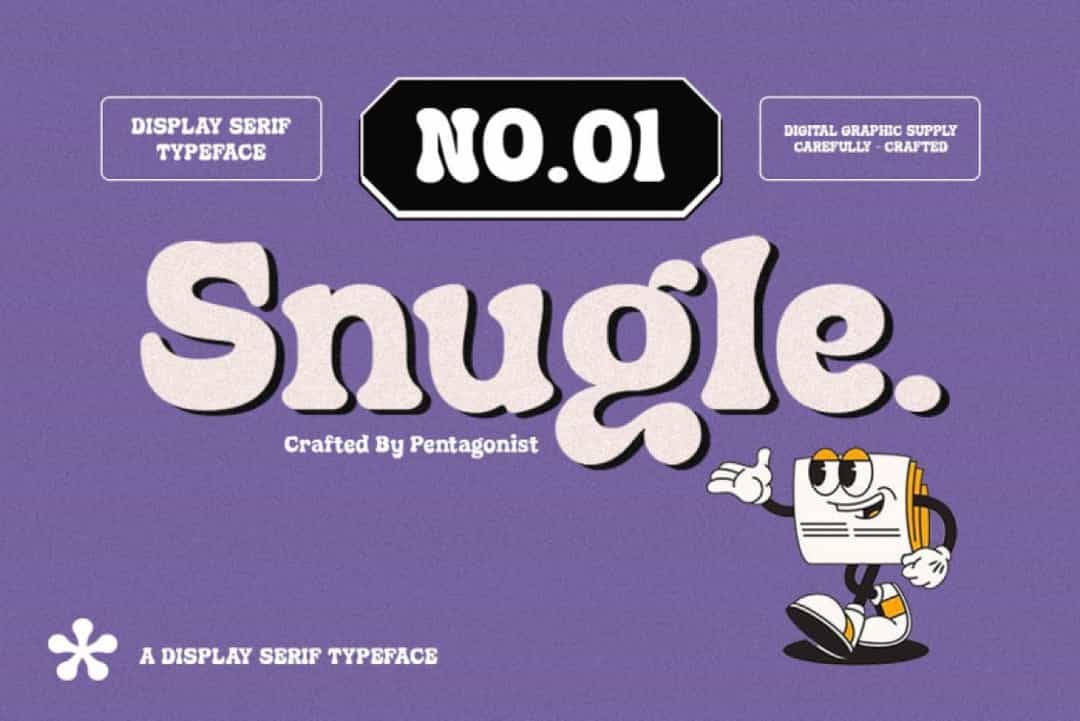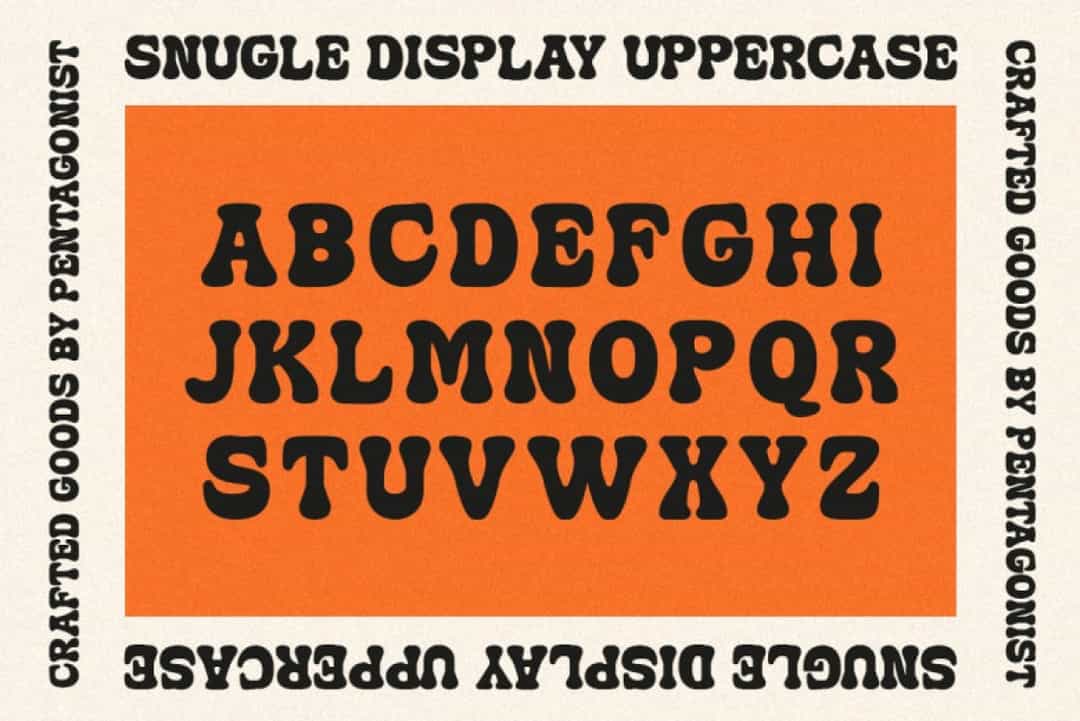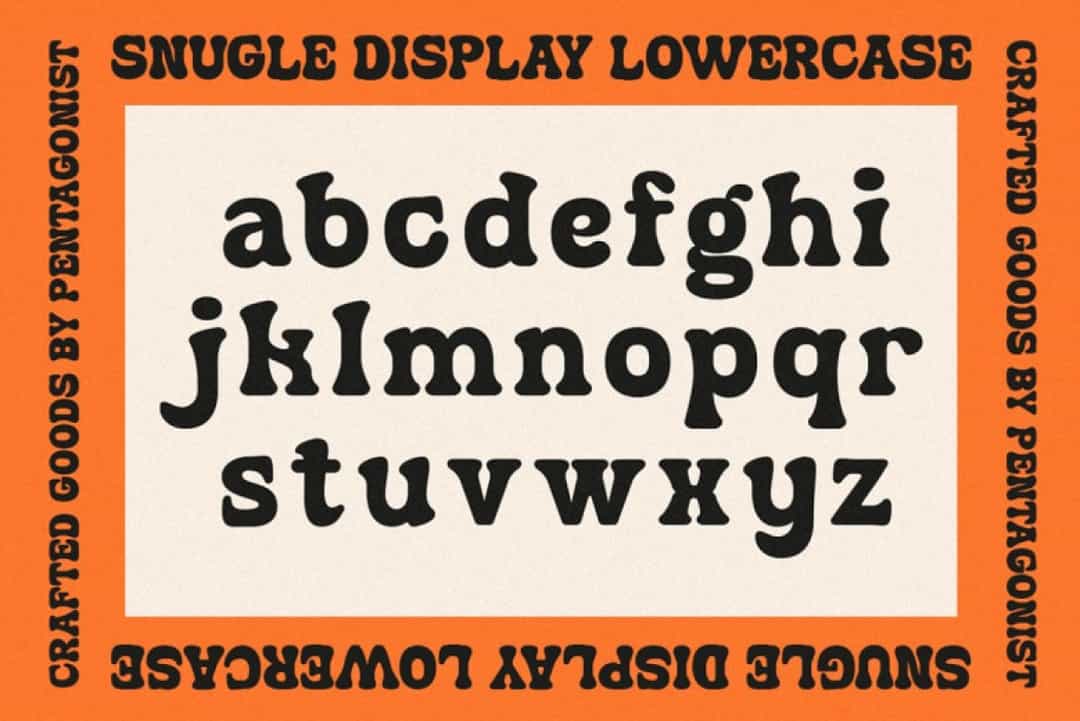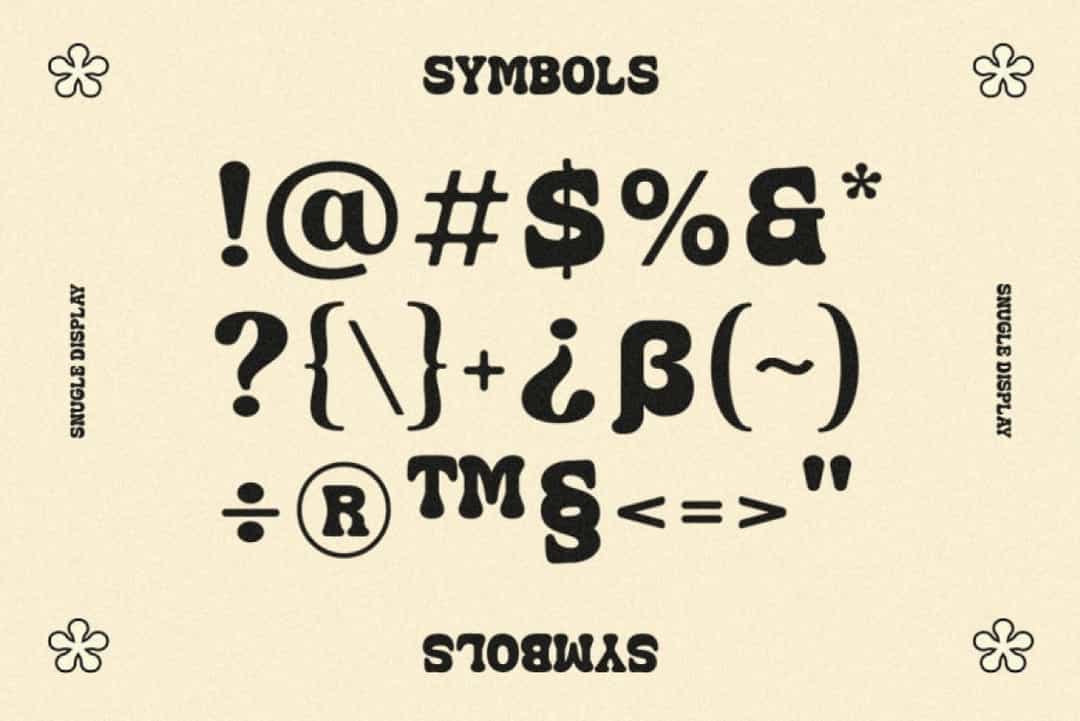
Snugle Font is an elegant display Serif Character inspired by Retro and Vintage styles, perfect for magazine headlines, branding projects and logo design, clothing/fashion label branding and product packaging. Packaging.